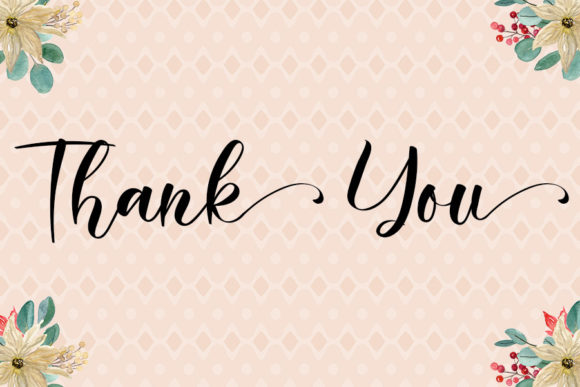
Introduction to Pastella Font
As designers, we’ve all been there – staring at a blank canvas, waiting for that spark of inspiration to strike. And then, it happens. A font catches our eye, and suddenly our creative project is infused with a new level of personality and style. For me, that spark was the Pastella Font. Its playful, handwritten feel instantly brightened up my design, and I knew I had to share it with the world.
Pastella Font is more than just a pretty face – it’s a valuable resource for designers looking to add a touch of whimsy to their work. With its PUA encoding, accessing the font’s glyphs and swashes is a breeze, making it a high-quality addition to any design project. Whether you’re working on a creative project with a transparent background or need a font that can stand on its own, Pastella Font is sure to impress.
Key Features of Pastella Font
- High-quality, unique design suitable for various creative projects, including digital art, logos, and typography.
- Comes in a transparent background format, allowing for easy customization and seamless integration with any design resource.
- Includes a wide range of characters, including uppercase and lowercase letters, numbers, and special symbols, making it a versatile design resource.
- Perfect for designers and artists looking for a unique, high-quality font to elevate their creative project and leave a lasting impression.
Honest Review: Pastella Font
I recently came across the Pastella Font while searching for a high-quality design resource for a creative project. I was blown away by the intricate details and elegant style it offers. ✨
- The Pastella Font is incredibly versatile and can be used for a variety of design applications, from headings to body text.
- It features a beautiful, cursive script with intricate flourishes that add a touch of sophistication to any design.
While the Pastella Font is an excellent choice for many design projects, there are a few limitations to be aware of: ⚠️
- The font may not be suitable for designs that require a bold, sans-serif font.
- The Pastella Font does not include a transparent background option, which may limit its use in certain design applications.
Overall, I’m thoroughly impressed with the Pastella Font and would highly recommend it to designers looking for a high-quality, elegant font for their next creative project.
Pastella Font
The Pastella Font is a high-quality design resource that can be used in various creative projects. With its transparent background and unique design, it can add a touch of elegance to your work.
The Pastella Font is commonly used in various creative projects, such as:
- Logo designs
- Posters
Alternatives to Pastella Font
Alegreya is a high-quality serif font ideal for creative projects requiring a classic touch. It features a transparent background and elegant lines, making it perfect for book covers, magazines, and posters. When to use: For formal and elegant designs, especially those requiring a sophisticated look. Compared to Pastella Font: Alegreya has a more formal and traditional feel, whereas Pastella Font is more modern and minimalist. Download Alegreya for free and enhance your design resource.
Montserrat is a modern sans-serif font that is highly versatile and suitable for various design projects. It features a clean and minimalist design, making it perfect for creative projects requiring a high-quality font. When to use: For modern and urban designs, especially those requiring a clean and minimalist look. Compared to Pastella Font: Montserrat has a more modern and edgy feel, whereas Pastella Font is more elegant and refined. Download Montserrat for free and boost your design resource.